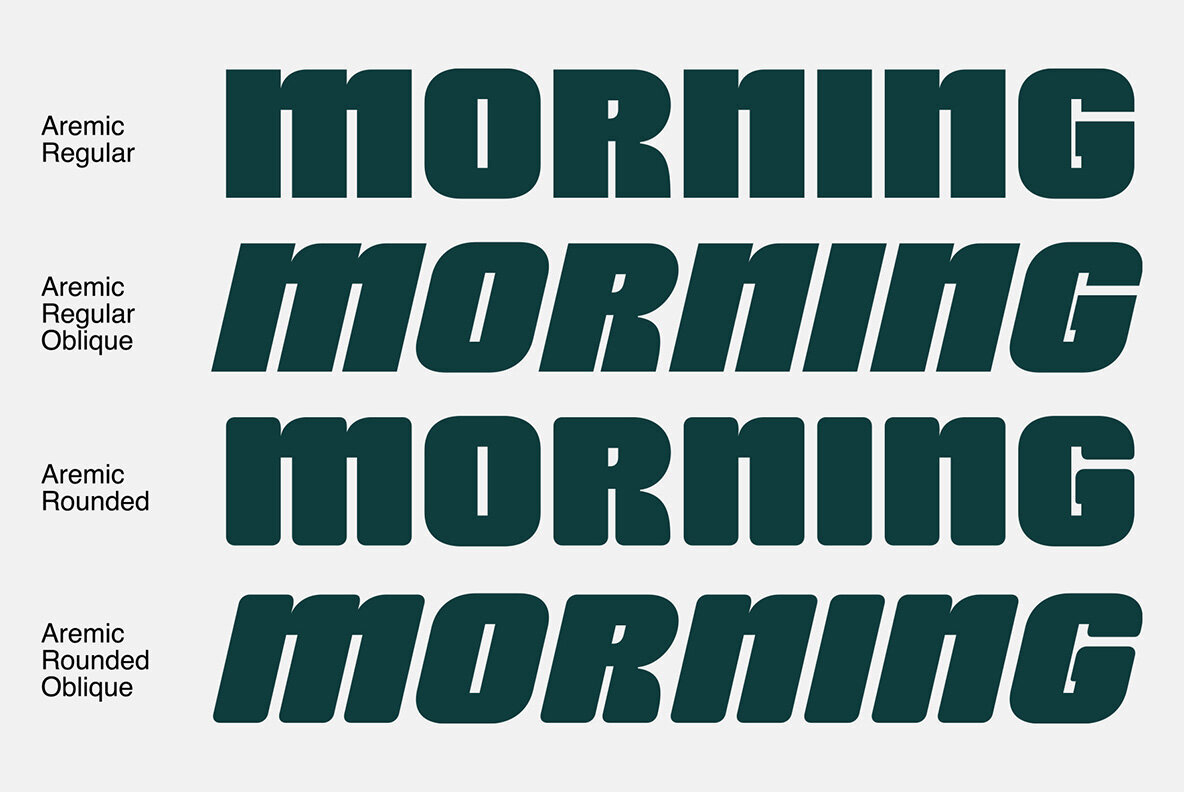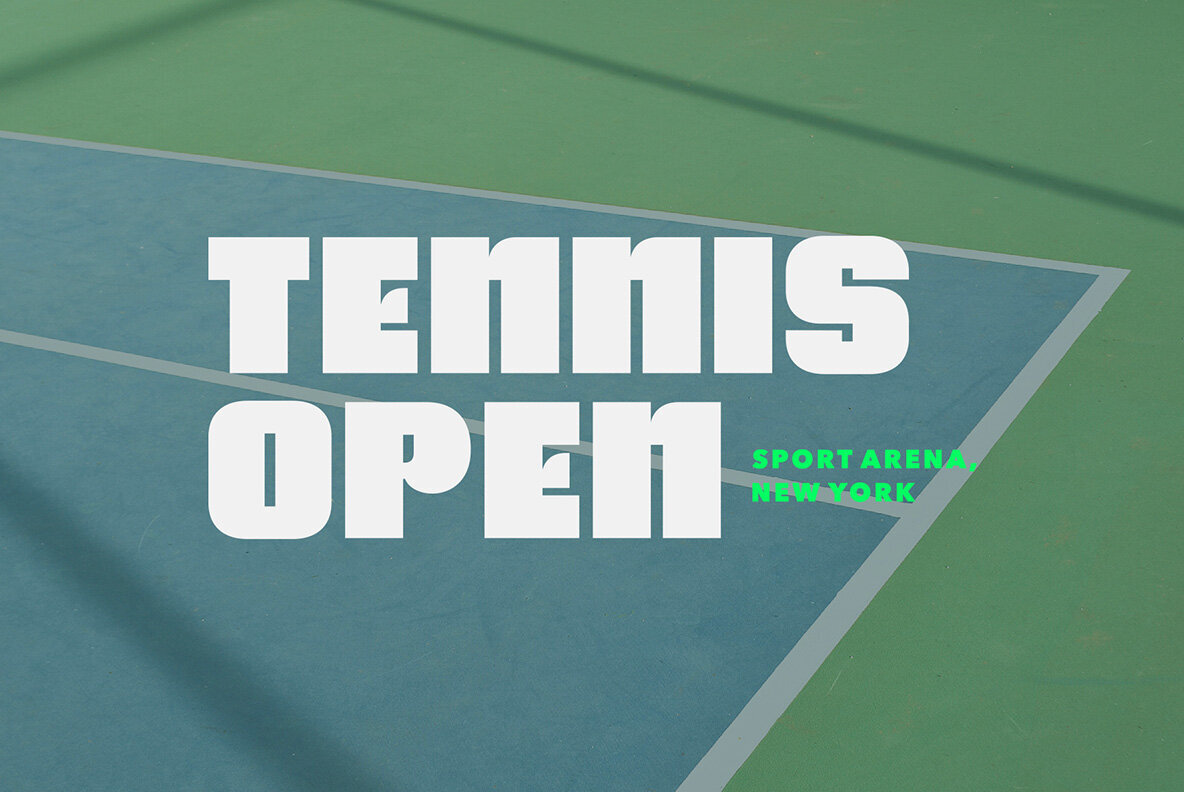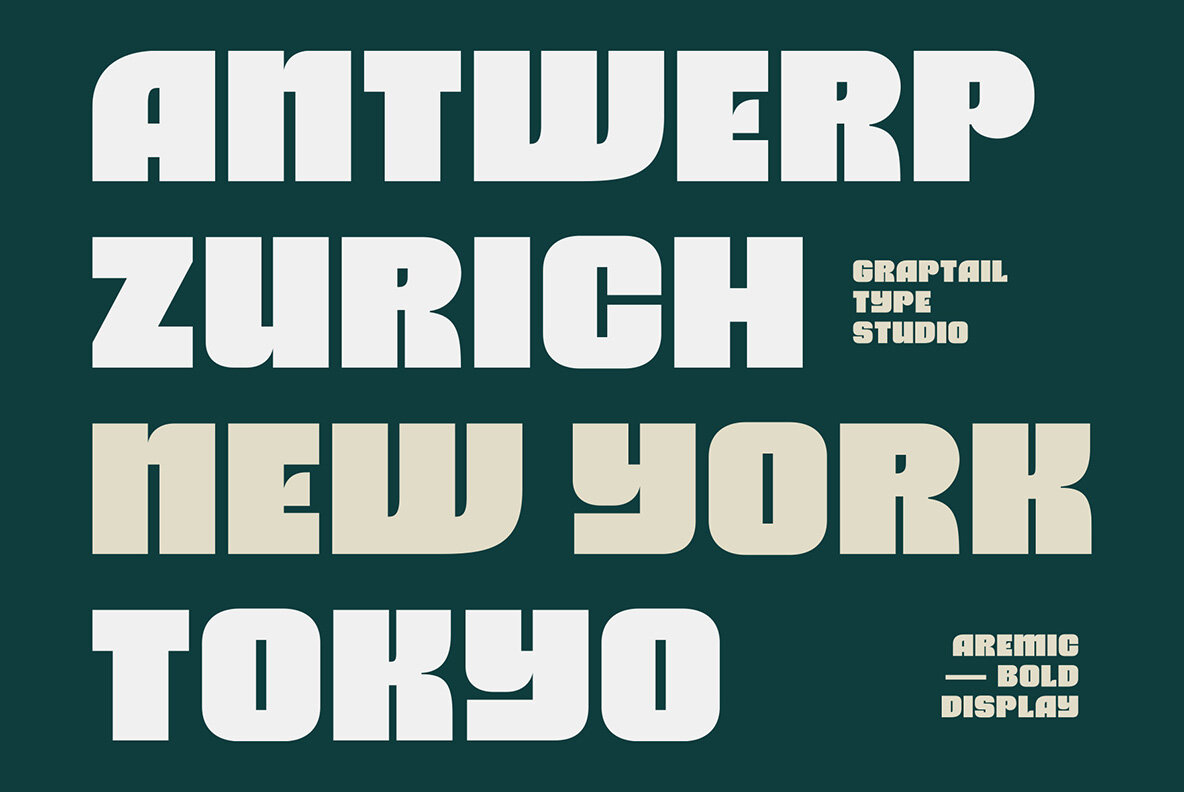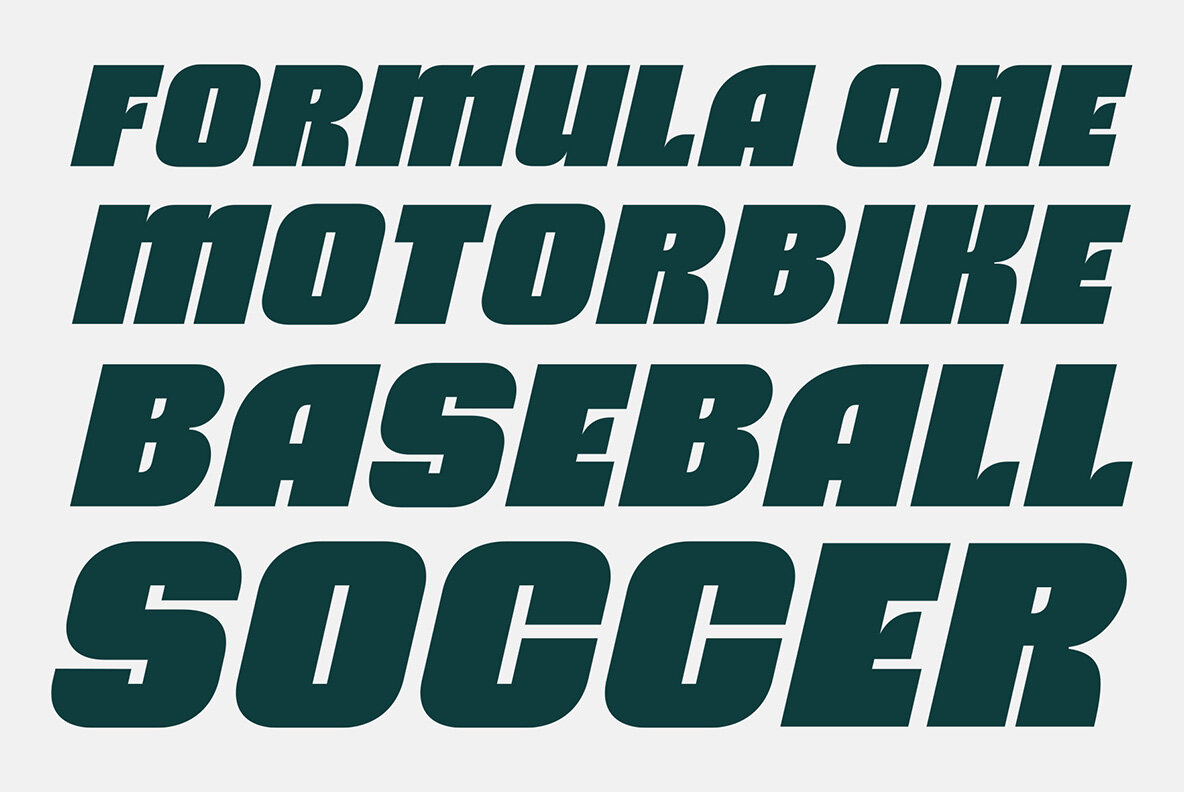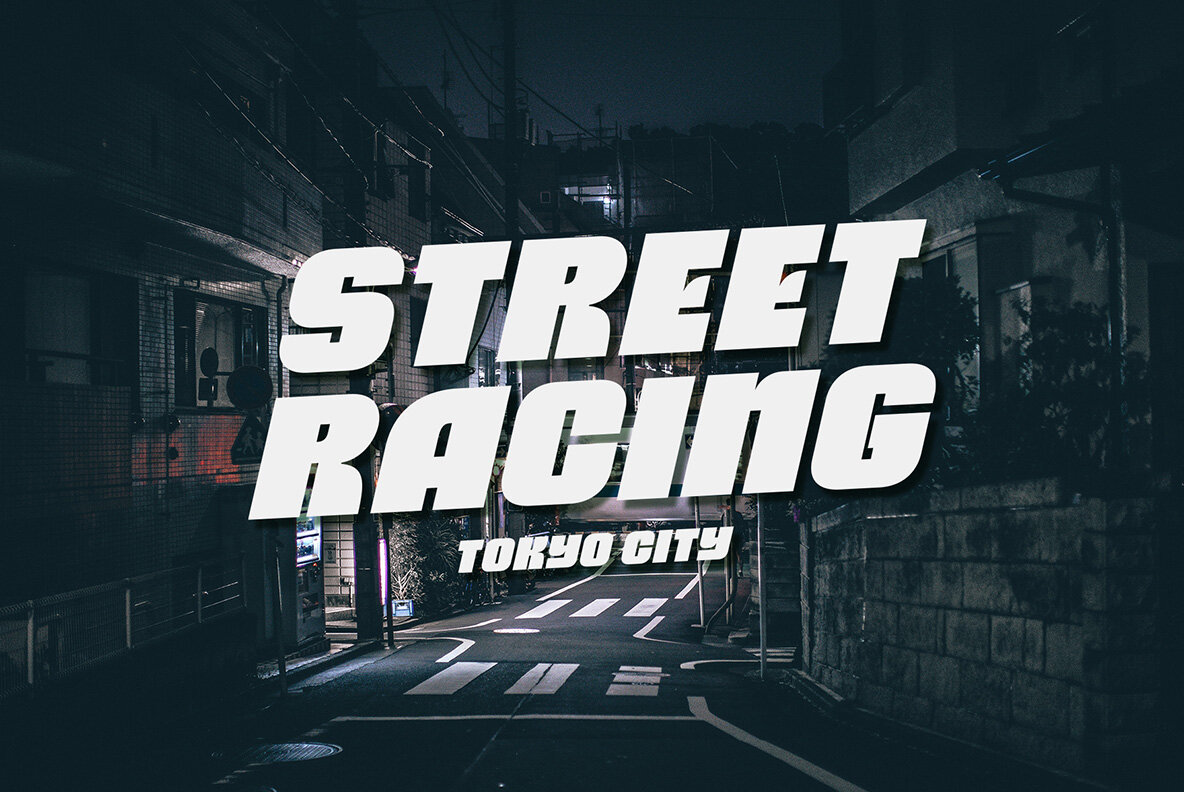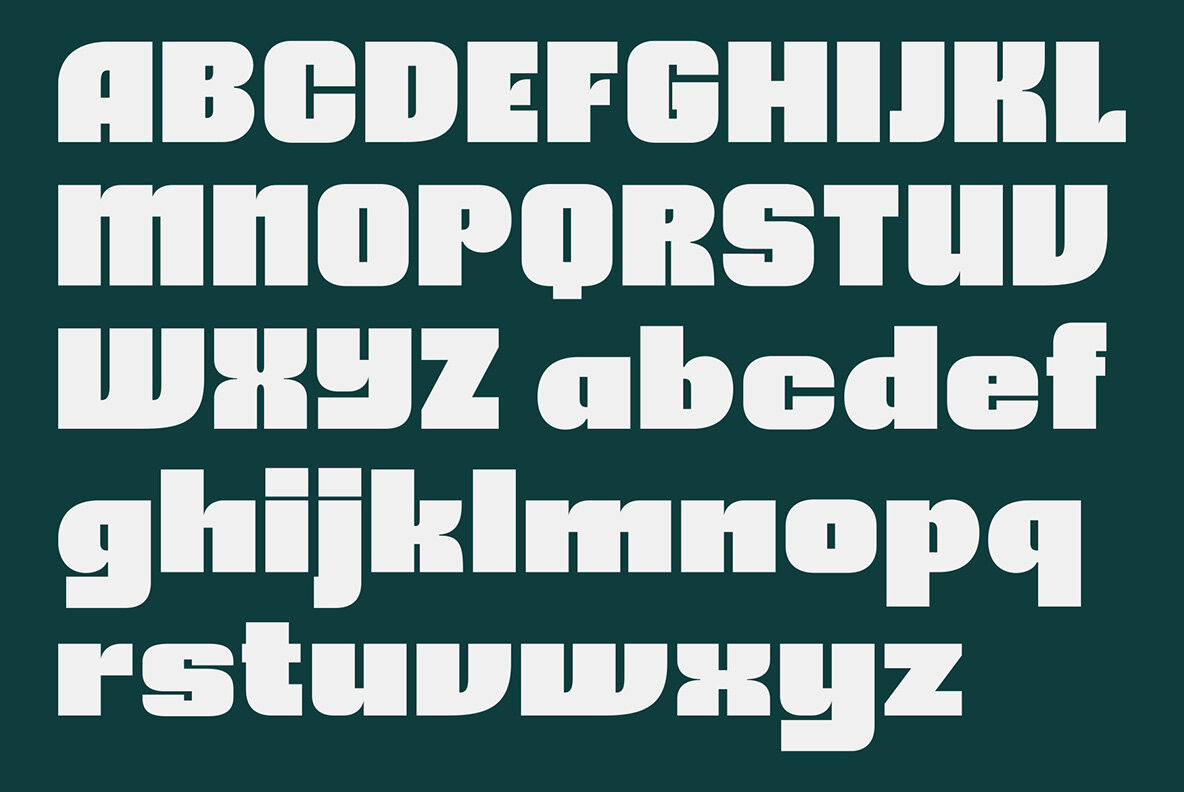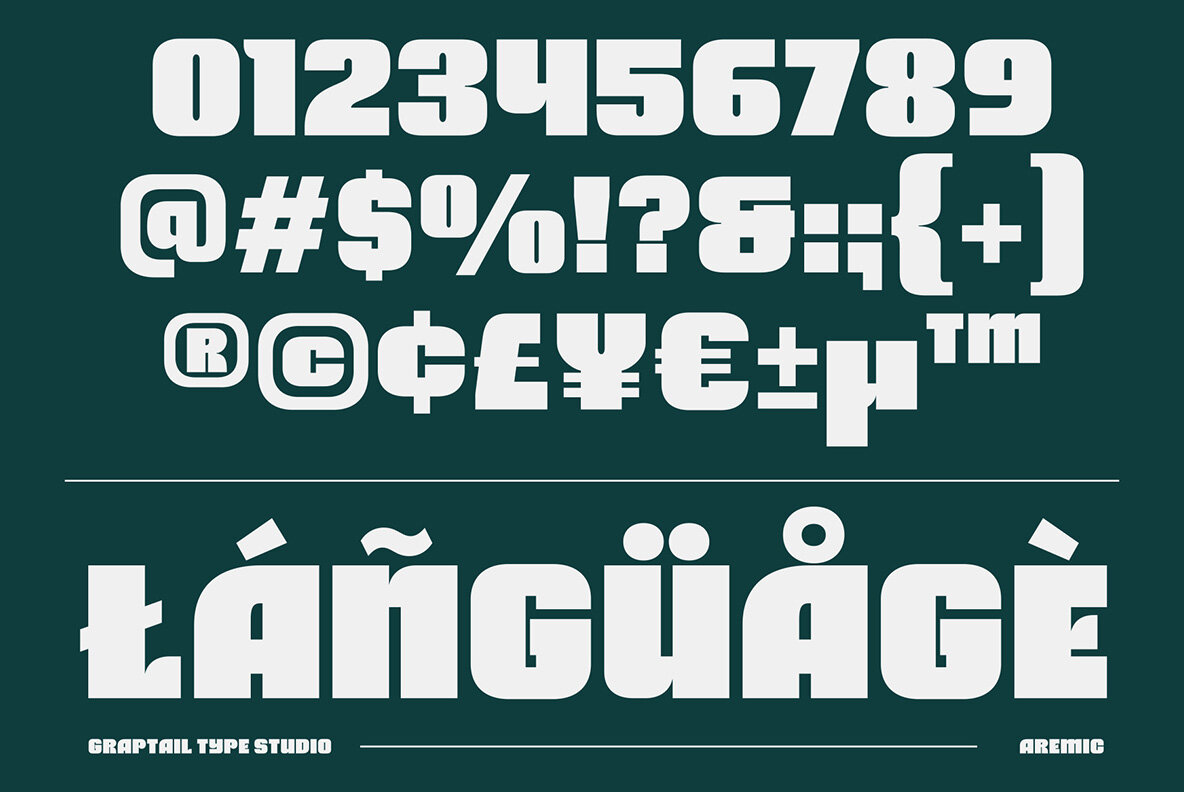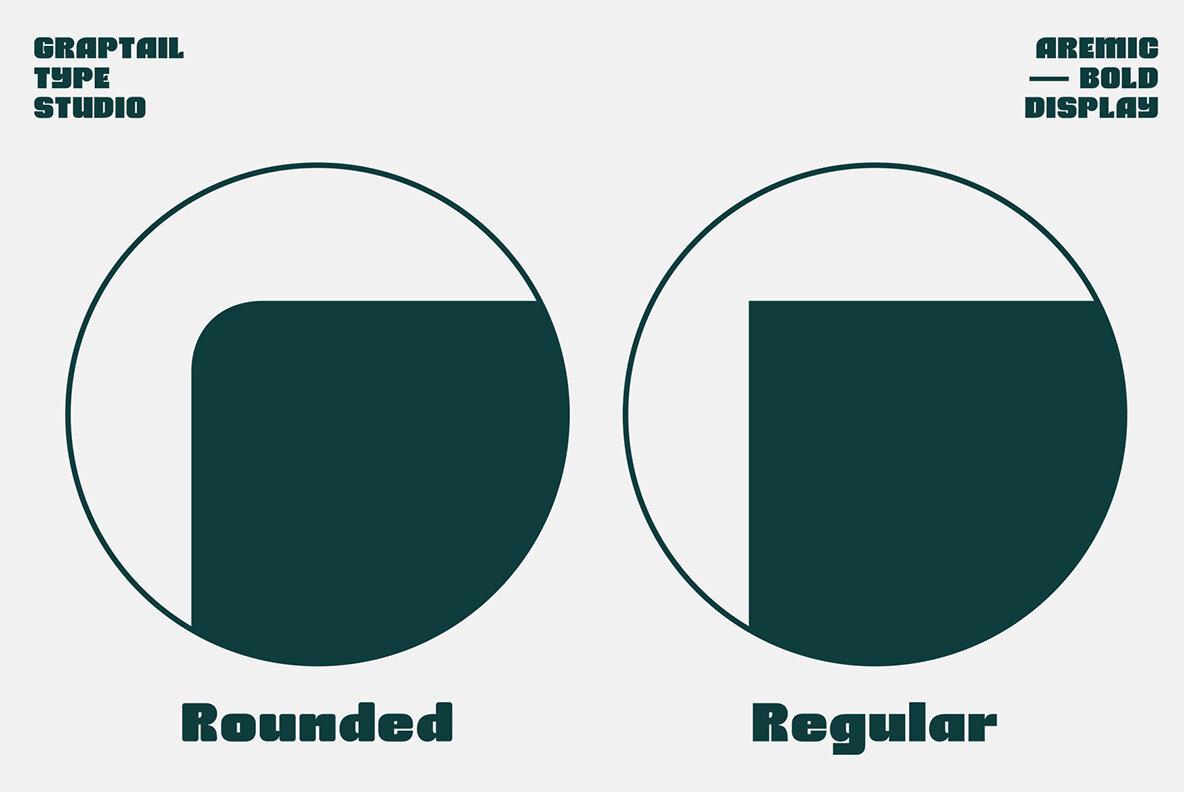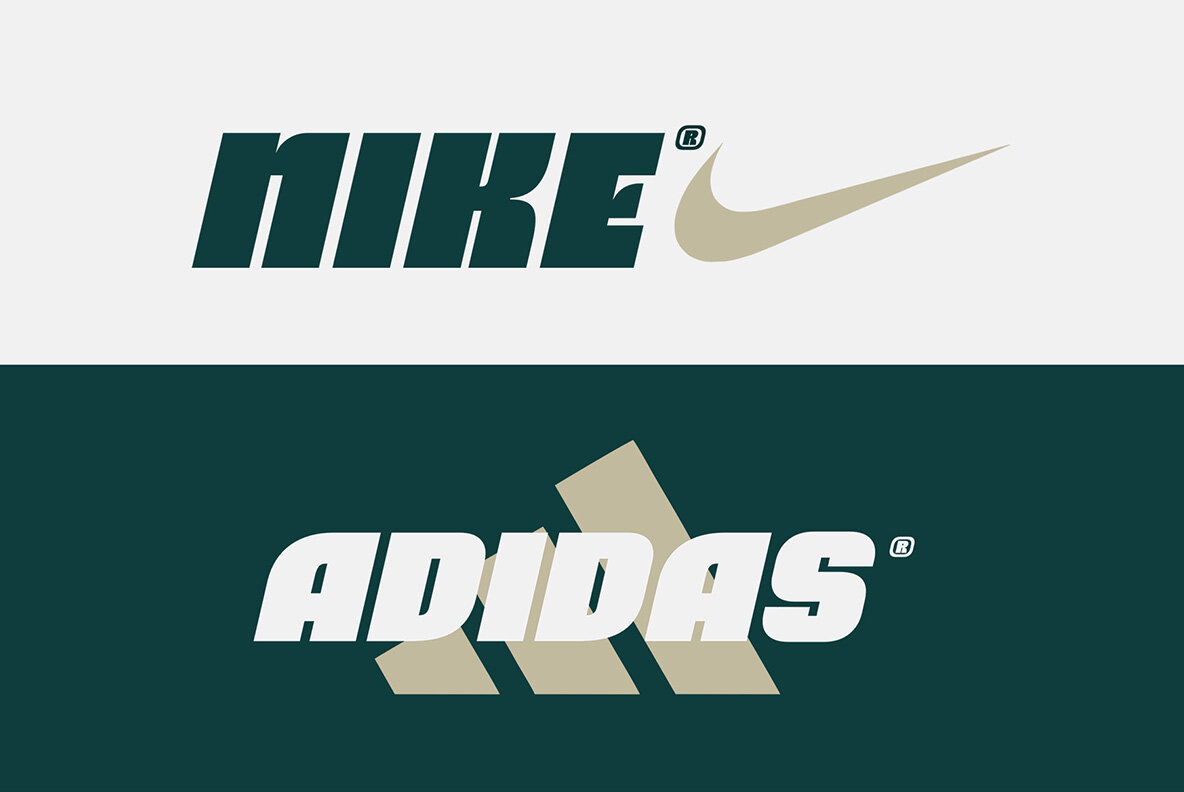
Aremic Font
Aremic is a striking display font, meticulously designed to make a statement. Its two captivating styles, Regular and Rounded, with an Oblique option, are inspired by the dynamic typography seen in sports posters. This typeface is an ideal choice for projects that demand attention and exude strength. Perfect for a range of applications, Aremic lends itself to a variety of design needs. From logos and headlines to signage and formal items such as invitations or greeting cards, its versatility is apparent. Use it in magazines, book covers, packaging, and any advertising medium to convey a bold and compelling message.Aremic: Bold Display Typeface with Sports Heritage